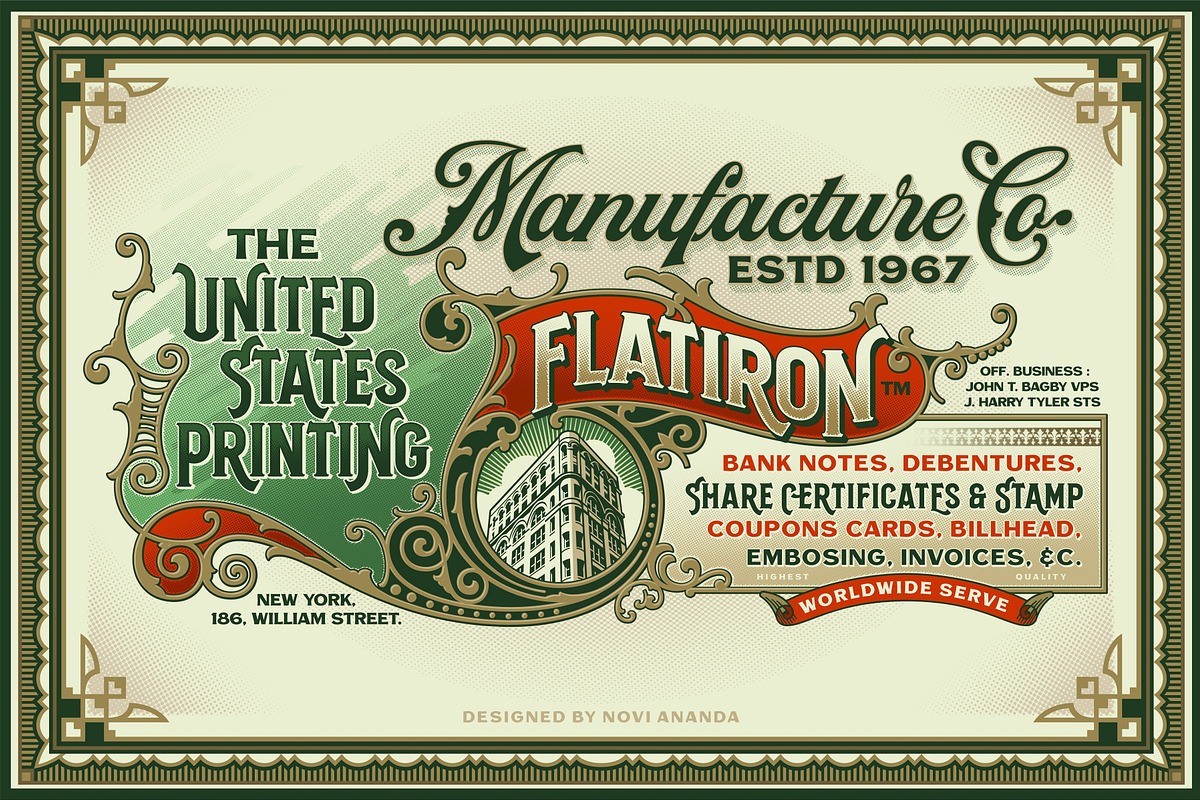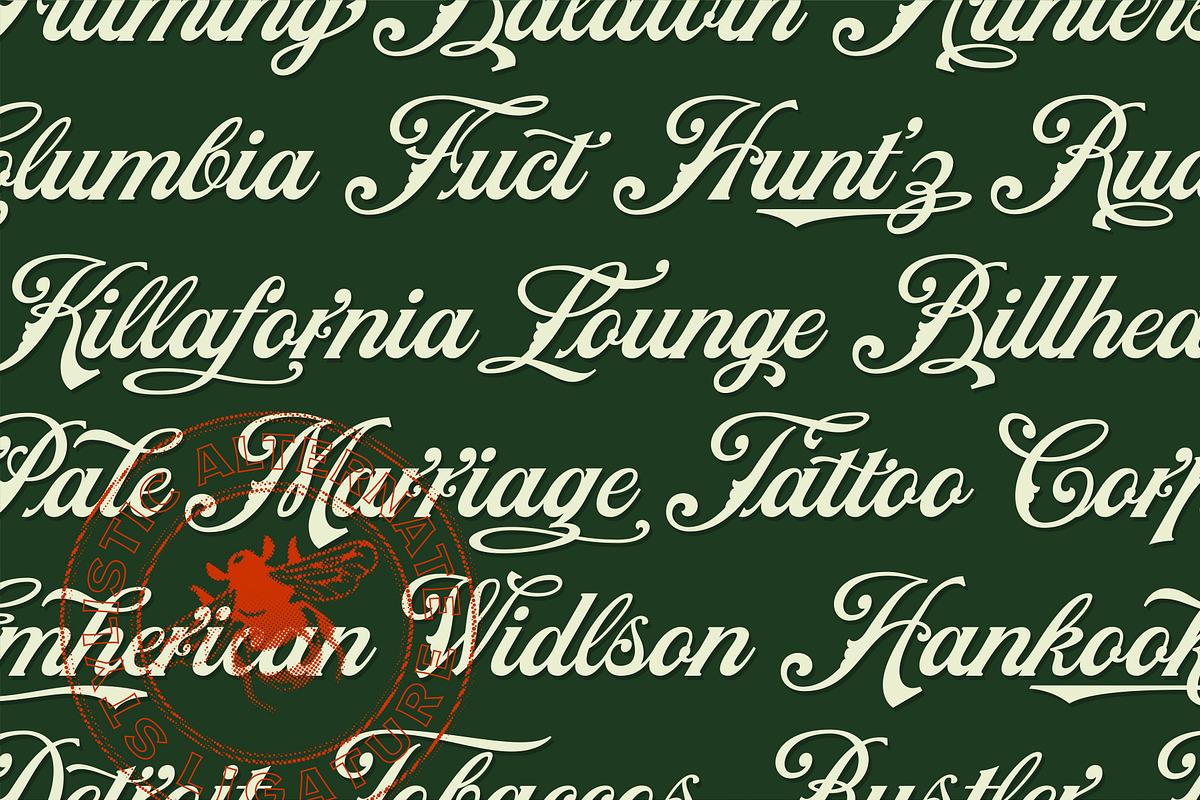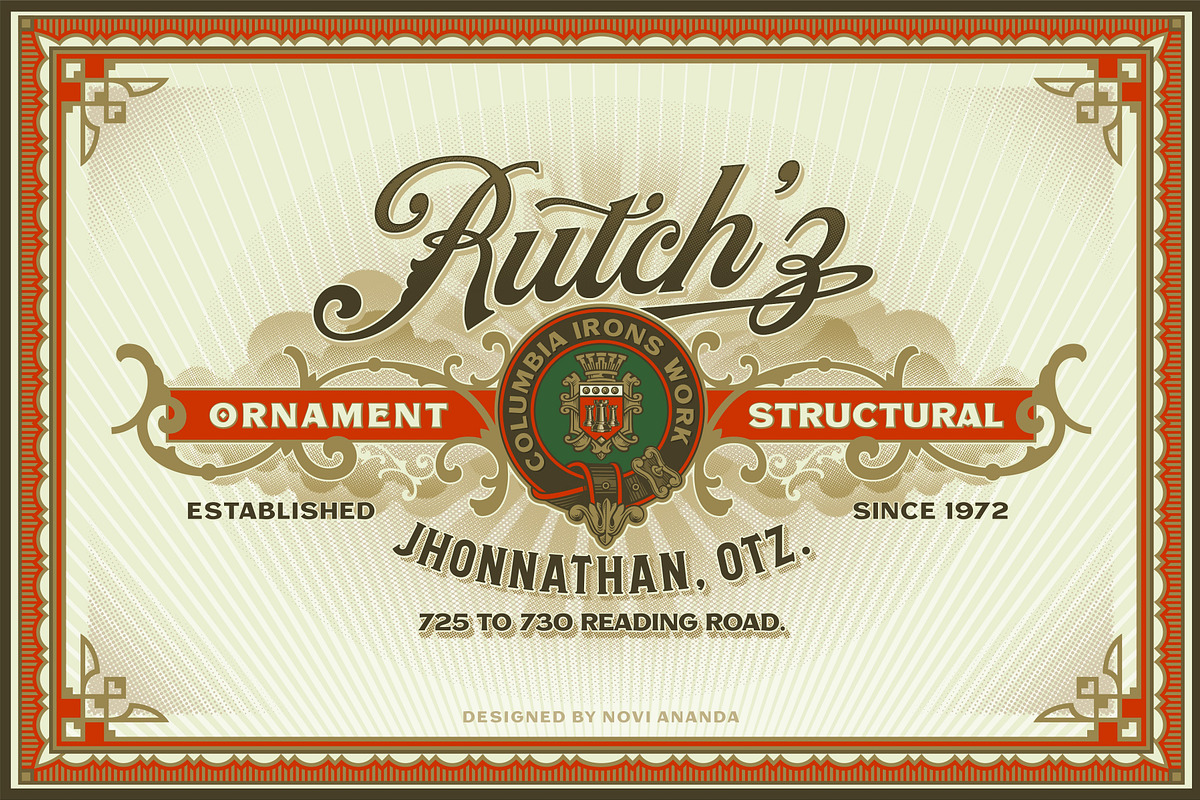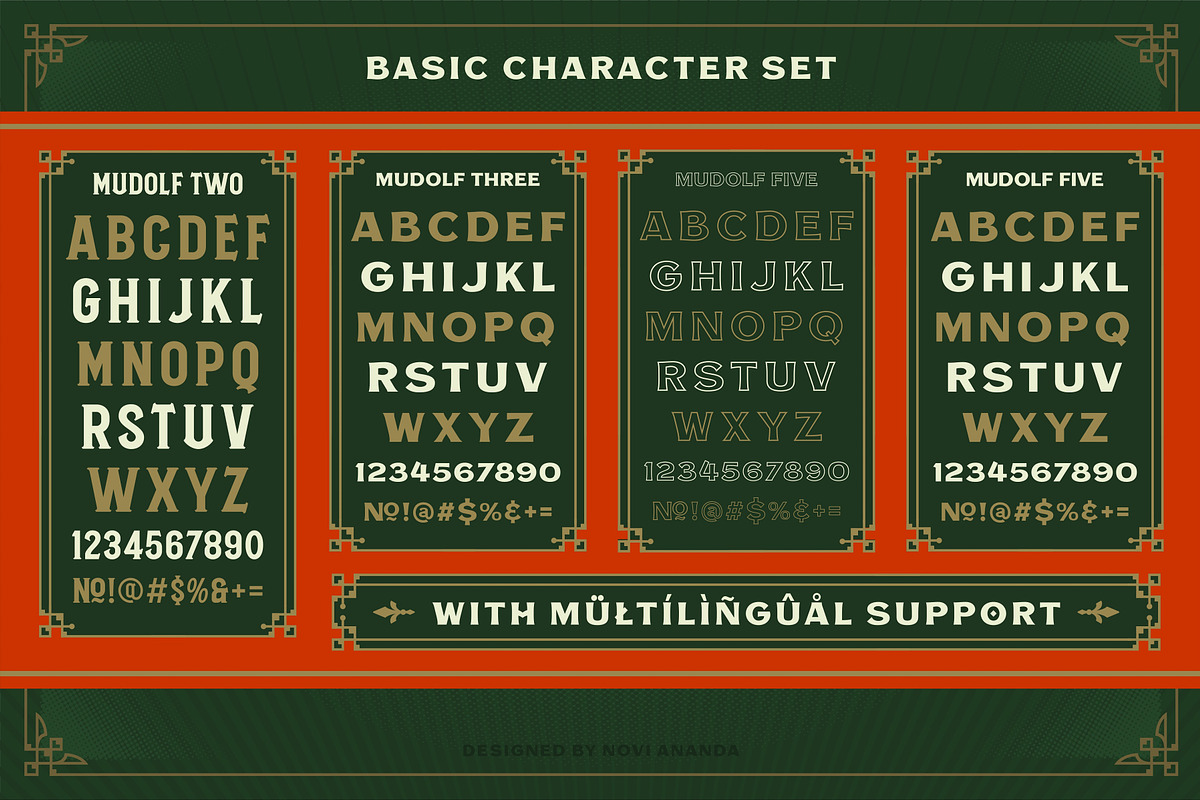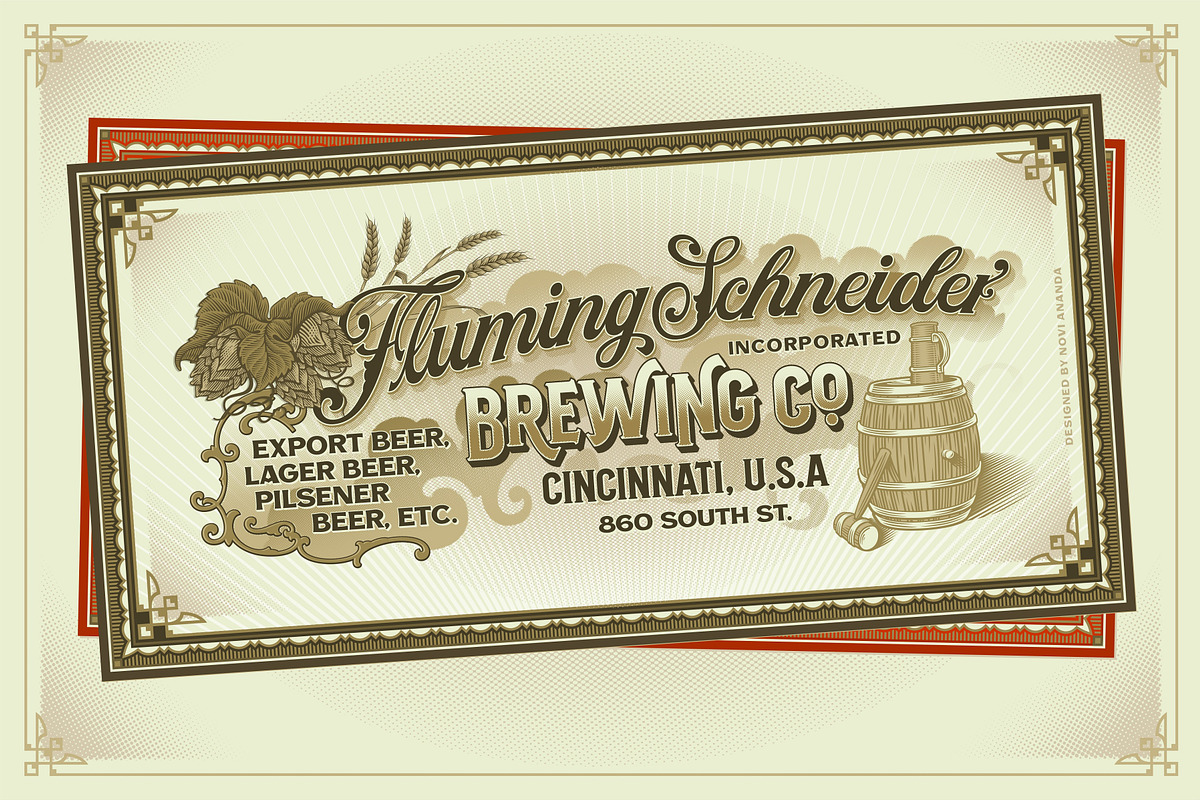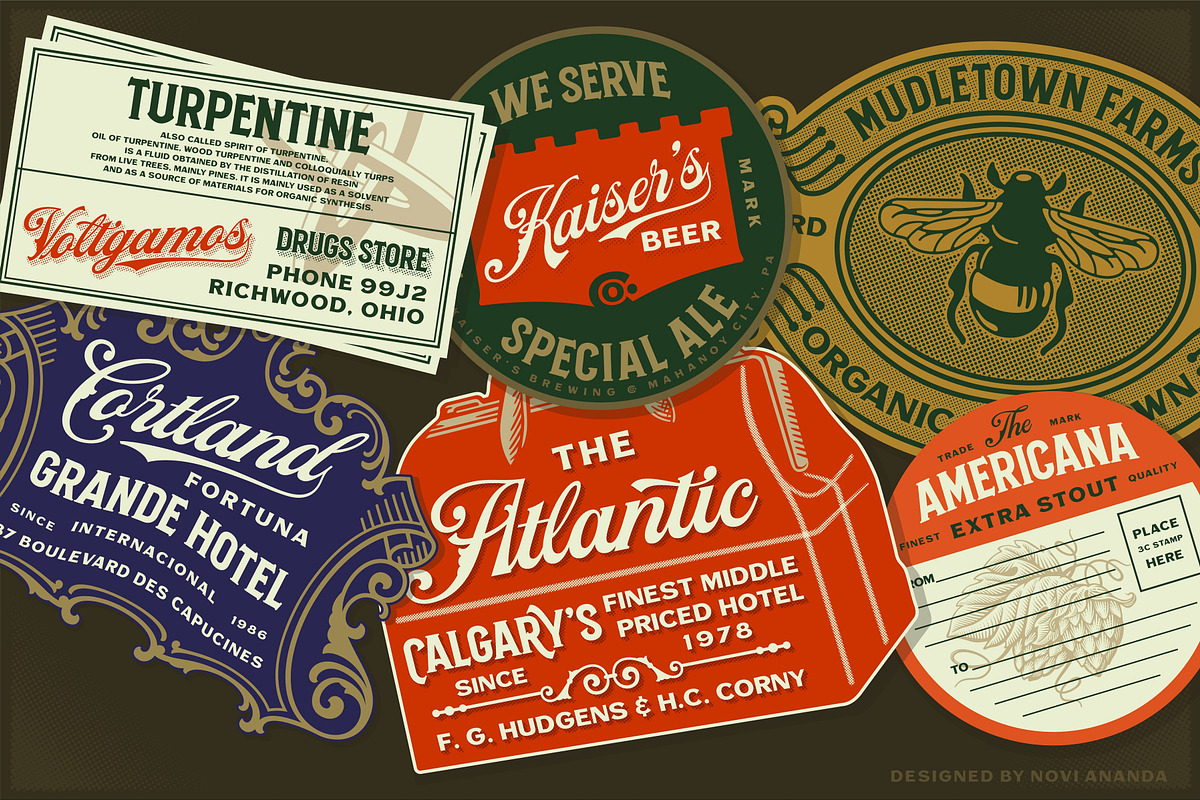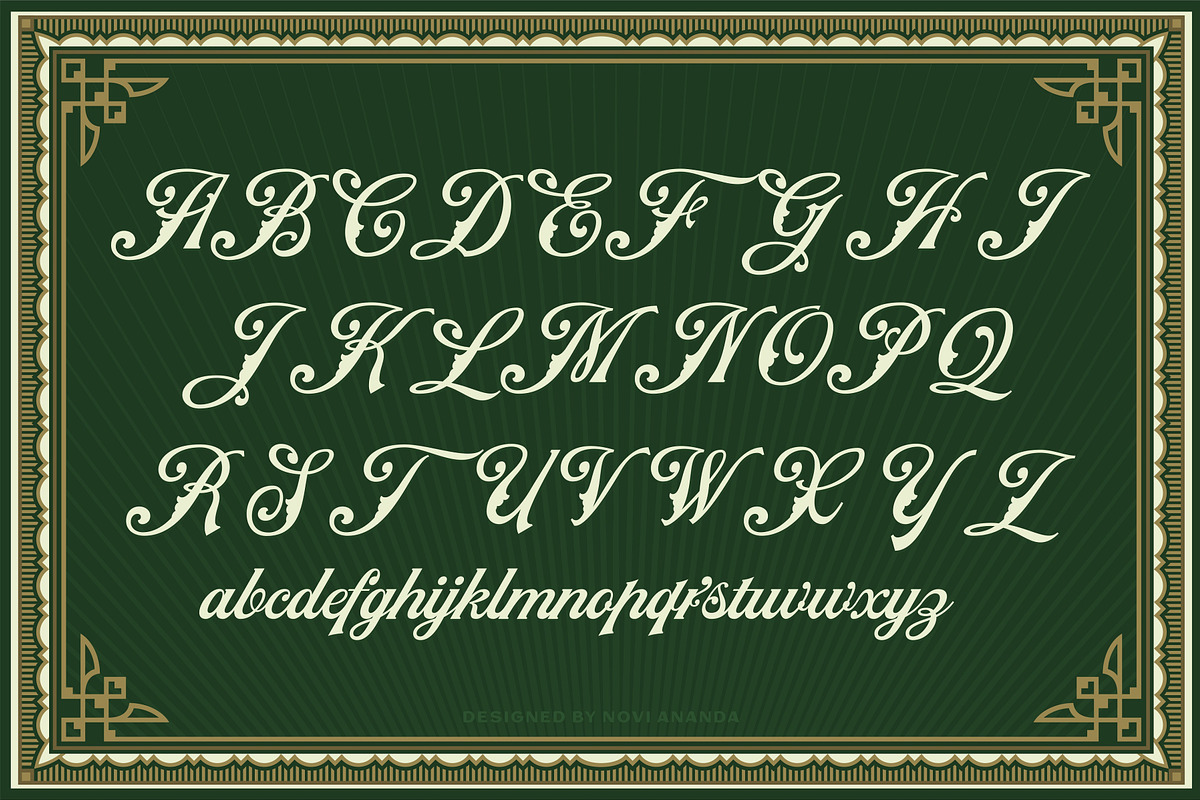
NS MUDOLF Font Family
Mudolf Font is inspired by lettering of vintage print, Sign and vintage style labels. Comes with five font collections, extras swashes, ligatures and stylistic alternates . Makes it ideal and perfect for creating a design piece inspired by letterheads, posters, signage, charters, labels, packaging, logotypes, etc.
130+ Stylistic Alternate
Standard & Discretionary Ligatures
NS Mudolf trhee Sans Serif
NS Mudolf trhee Sans Serif Outline
NS Mudolf trhee Sans Serif Clean
- Comes with five font collections, extras swashes, ligatures and stylistic alternates .
- NS Mudolf One Regular
- NS Mudolf Two Regular
- NS Mudolf Five Regular
- NS Mudolf Four Regular
- NS Mudolf Three Regular